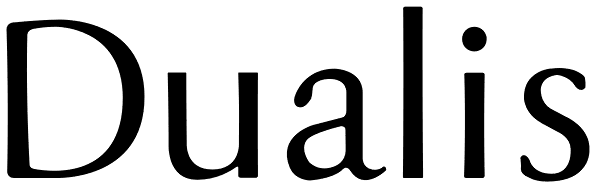
Dualis
The DUALIS, aka the serif-detesting Garamond, combines specifics of 2 typeclasses: Sans Serif & Antiqua. When the Garamond is too old fashioned and the Optima is worn out, the Dualis will fit the gap.